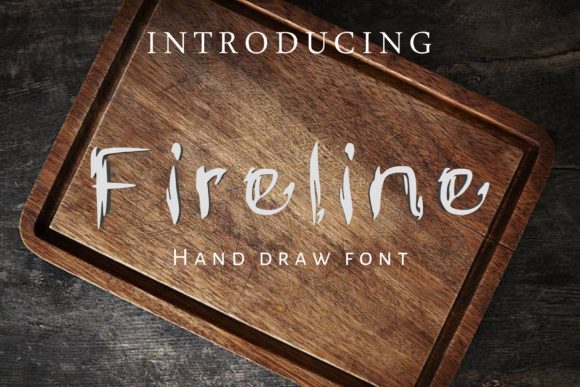
Unleash your creativity with Fireline Font, the ultimate display font that captures the essence of vintage charm with a contemporary twist. Step into a world of captivating designs and let your imagination run wild.
Dive into the realm of old books and manuscripts, where Fireline Font transports you to a bygone era. Its intricate details and flowing characters evoke a sense of nostalgia, adding an air of sophistication to your projects. Whether you're crafting posters, banners, logos, or product packaging, Fireline Font is your ticket to creating timeless designs that resonate with audiences.
Discover the versatility of Fireline Font, a font that effortlessly adapts to a wide range of design styles. Its unique charm complements both classic and modern aesthetics, making it the perfect choice for designers seeking a font that transcends time. Unleash your creativity and explore endless possibilities with Fireline Font, the font that ignites your imagination and sets your designs ablaze.
With Fireline Font, you're not just downloading a font; you're embarking on a journey through history, culture, and art. Its carefully crafted characters and distinctive style will transform your designs into captivating works of art. Experience the allure of Fireline Font and elevate your projects to new heights of visual excellence.
Whether you're a seasoned designer or just starting your creative journey, Fireline Font is the perfect font to add a touch of vintage elegance to your designs. Its user-friendly nature makes it accessible to designers of all skill levels, ensuring that your creative vision comes to life effortlessly.